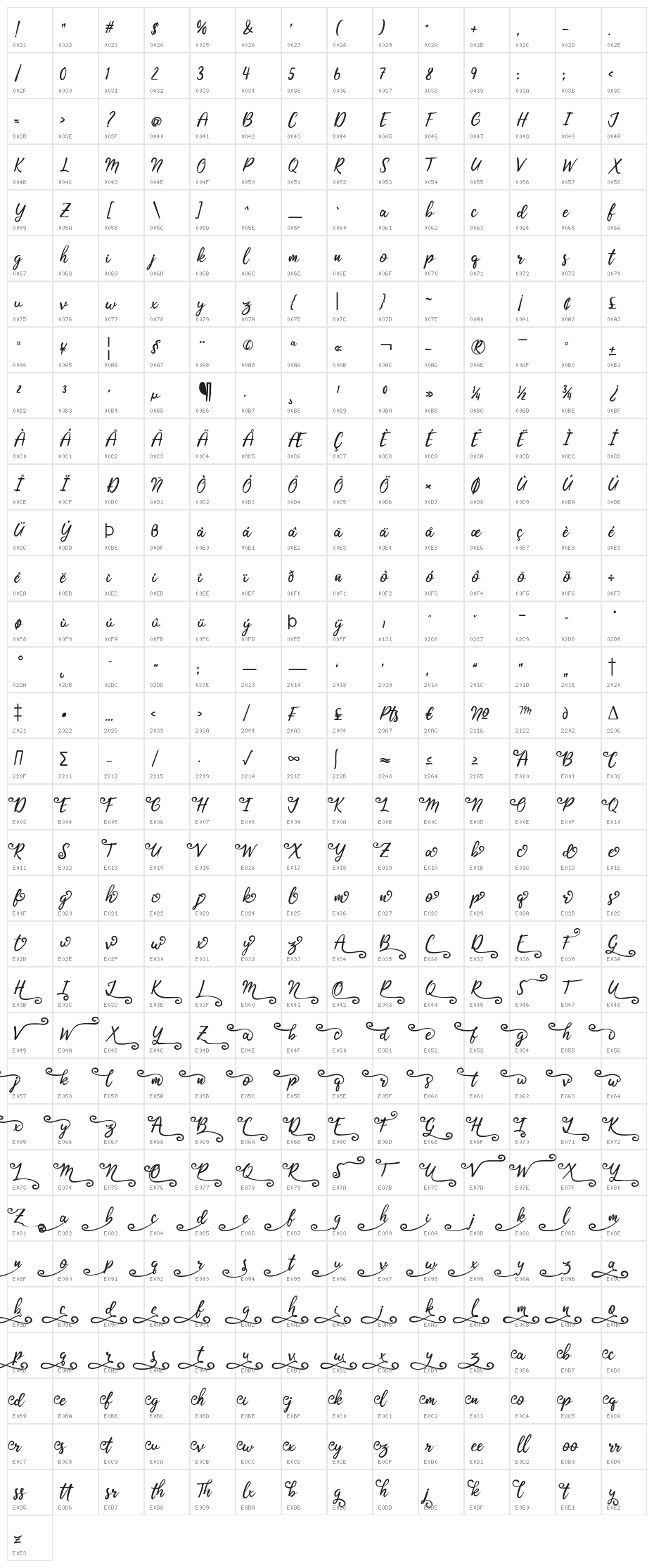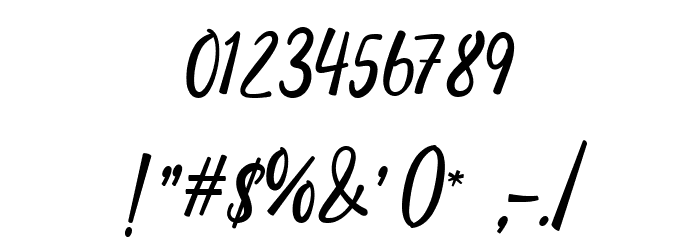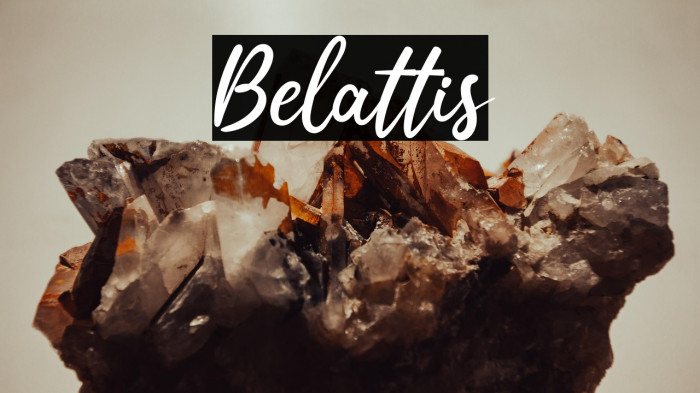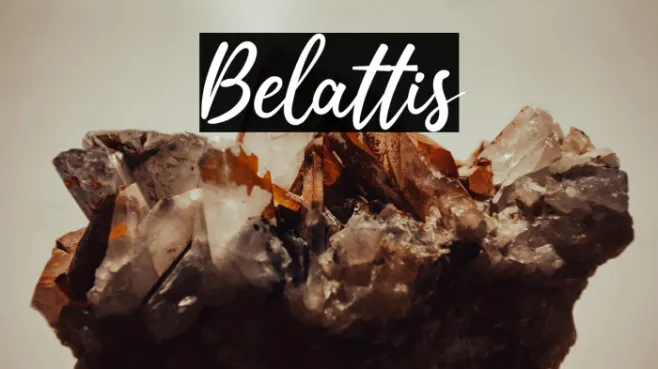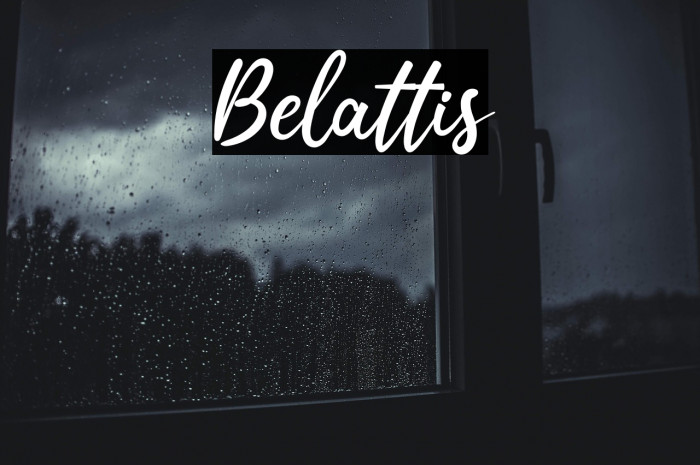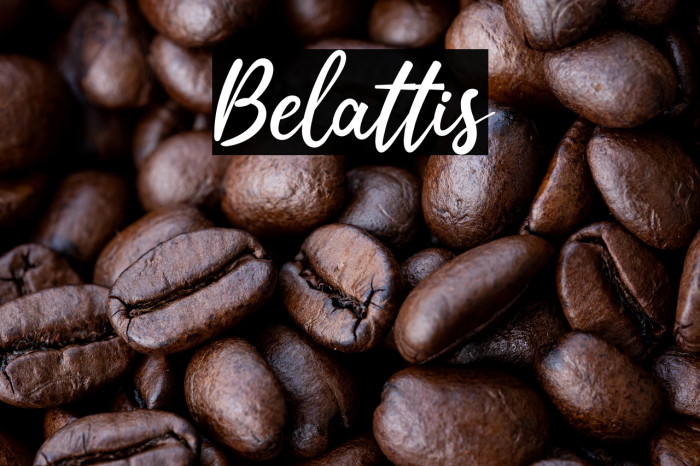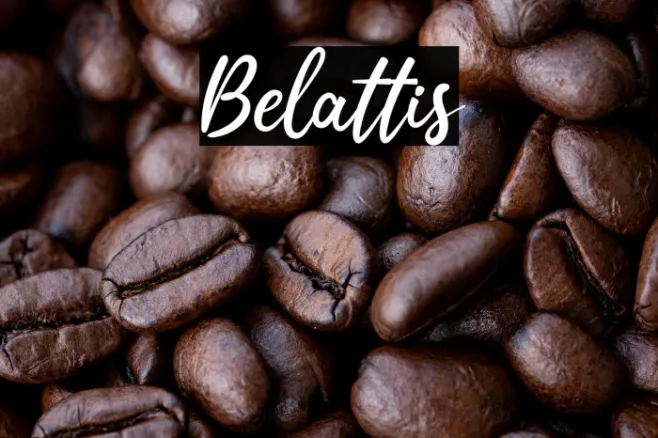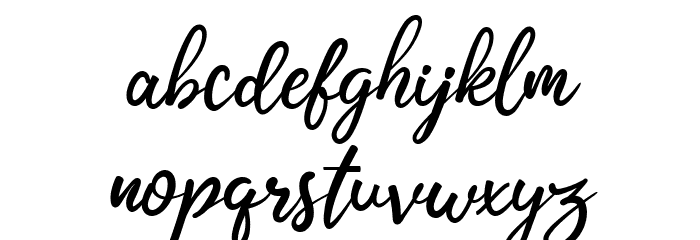
Belattis Font
Belattis Description
This font features a dynamic and flowing script style, characterized by its elegant and smooth curves. The letters are interconnected, creating a sense of continuity and fluidity. The uppercase characters are bold and slightly slanted, giving a sense of movement and energy. The lowercase letters maintain a consistent style, with rounded edges and a slight slant that enhances the handwritten feel. Numbers and special characters are designed to match the overall aesthetic, ensuring a cohesive look across all text elements. This font is ideal for projects that require a personal touch or a sense of elegance and sophistication.
| Use Case | Logos, Invitations, Personal projects |
| Proposed Projects | Ideal for wedding invitations, greeting cards, branding, and personal projects requiring a touch of elegance. |